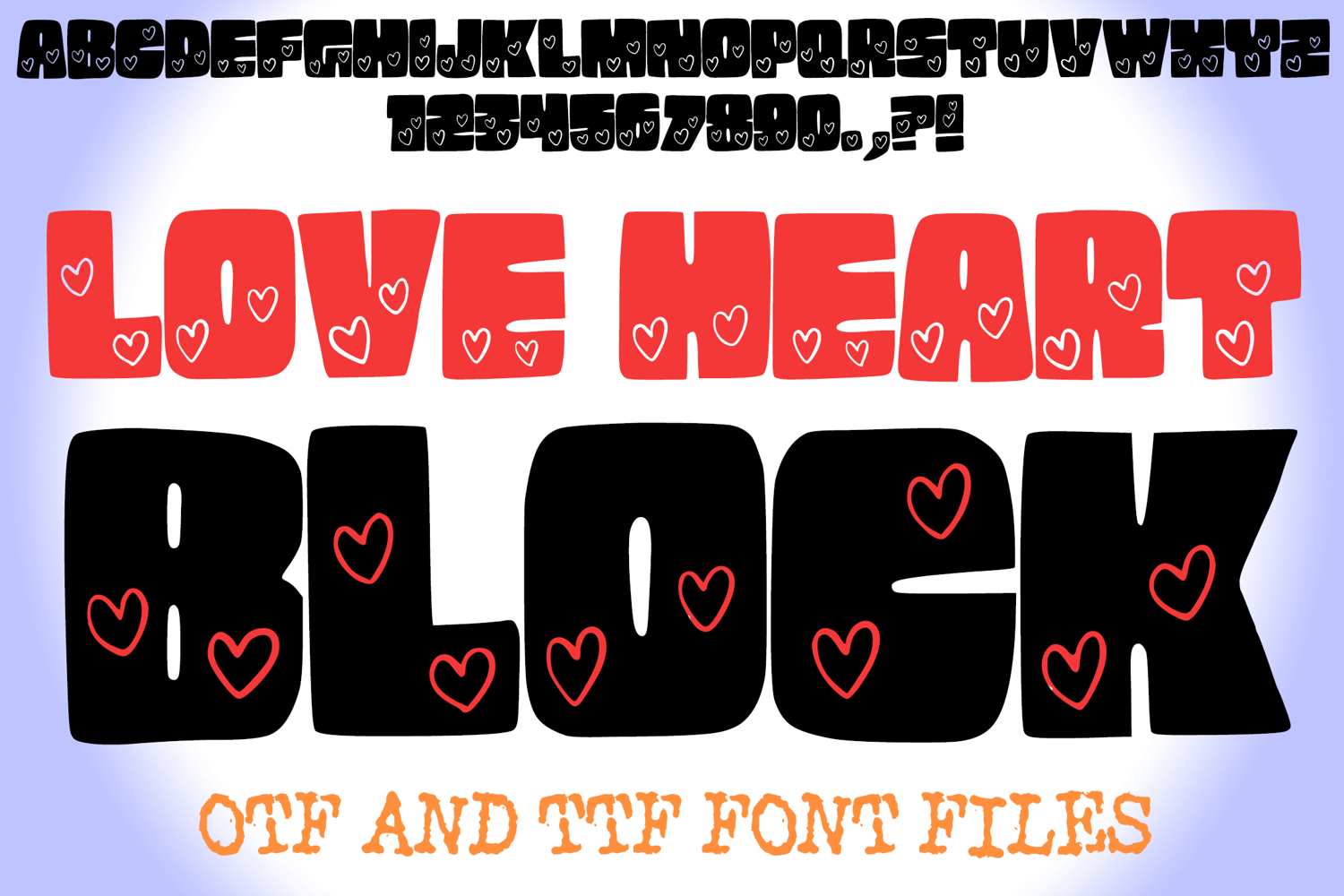
Make a statement with Love Heart Block Font, a bold and playful display typeface designed to capture hearts! This font features heavy, solid black block characters that provide maximum impact, each uniquely detailed with tiny, hand-drawn white hearts nested inside the letters. The striking contrast between the strong silhouettes and the delicate heart doodles creates a whimsical yet powerful look, making it the perfect choice for Valentine’s Day cards, romantic banners, and eye-catching social media headlines.